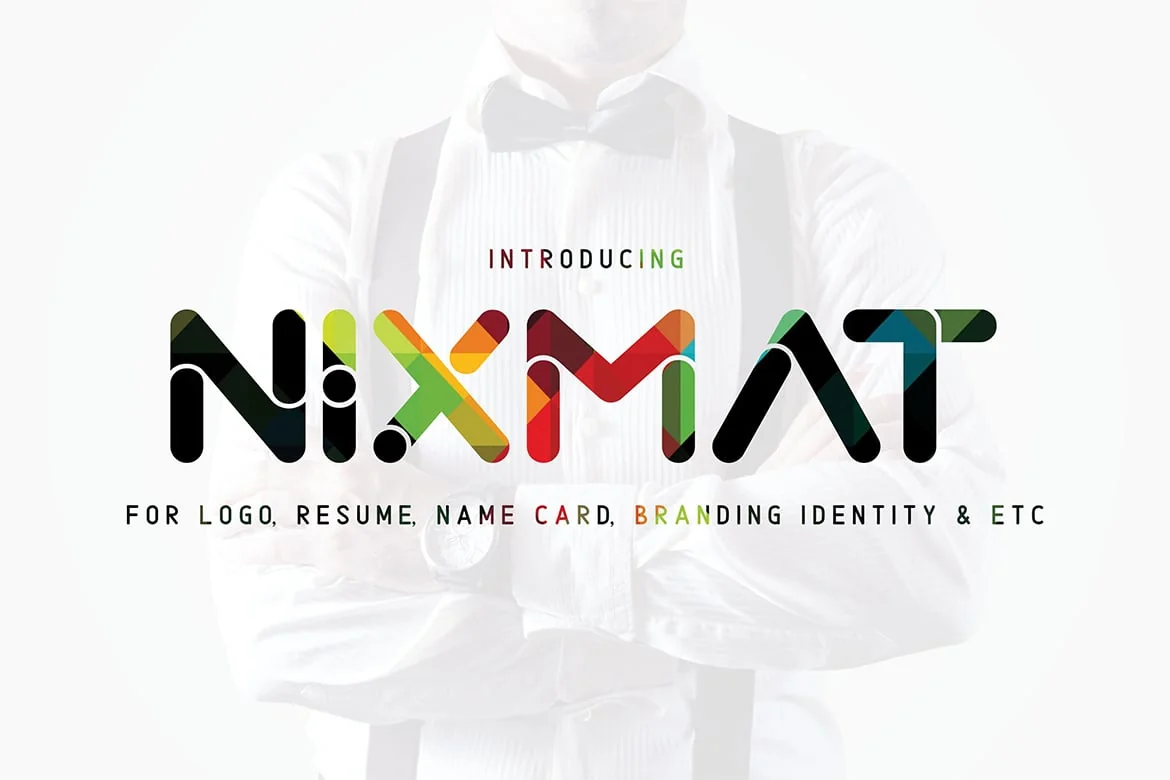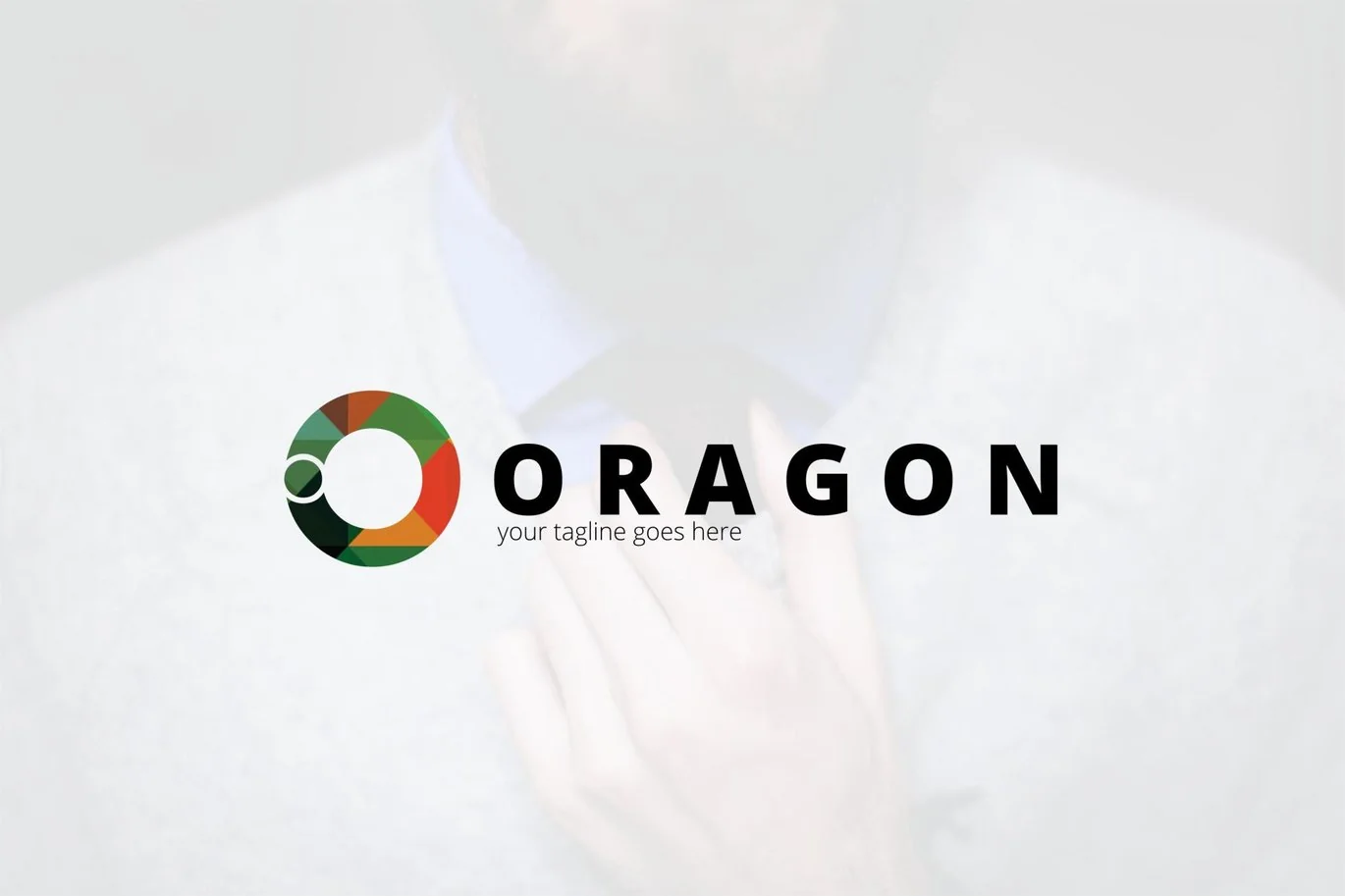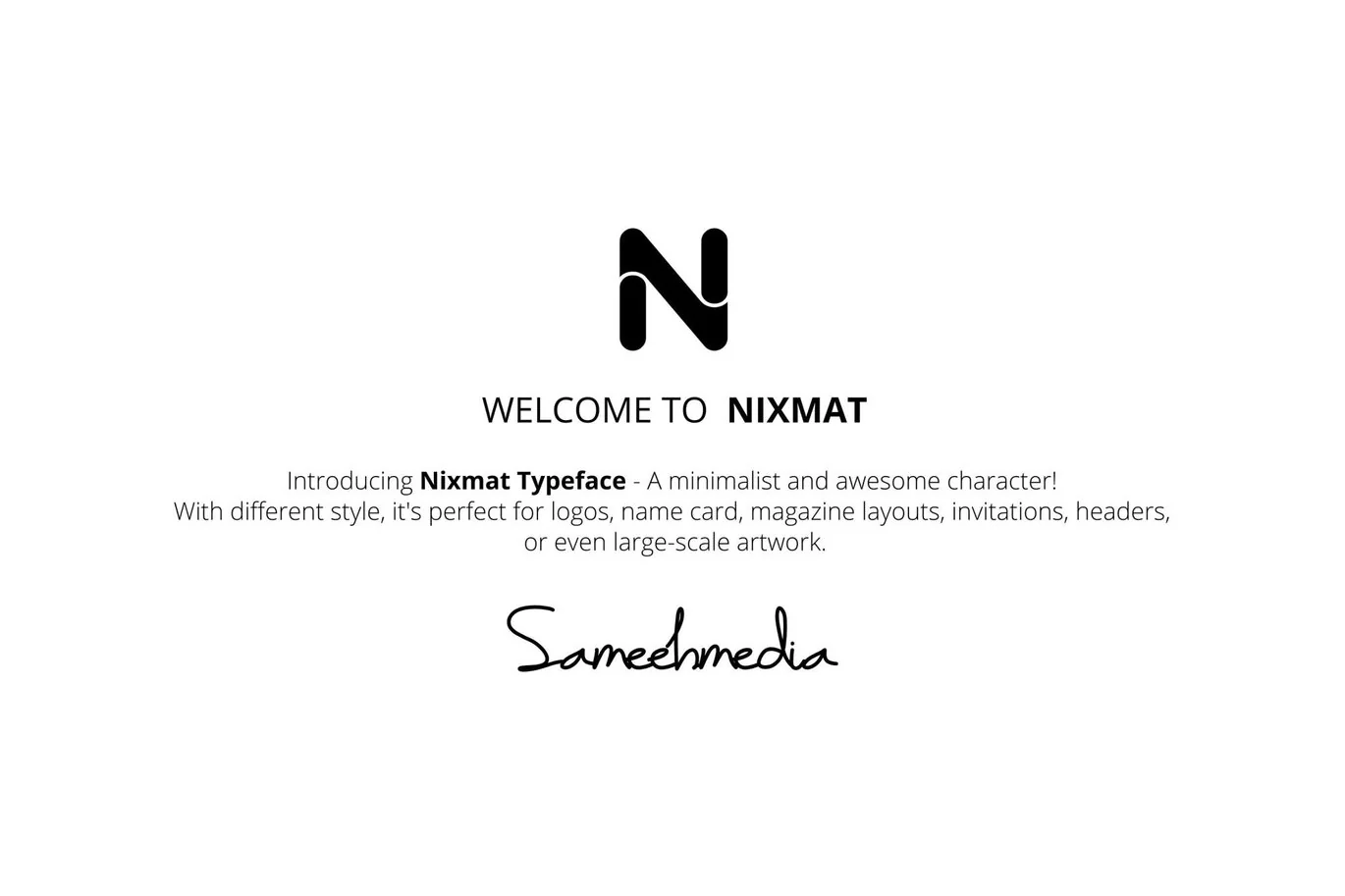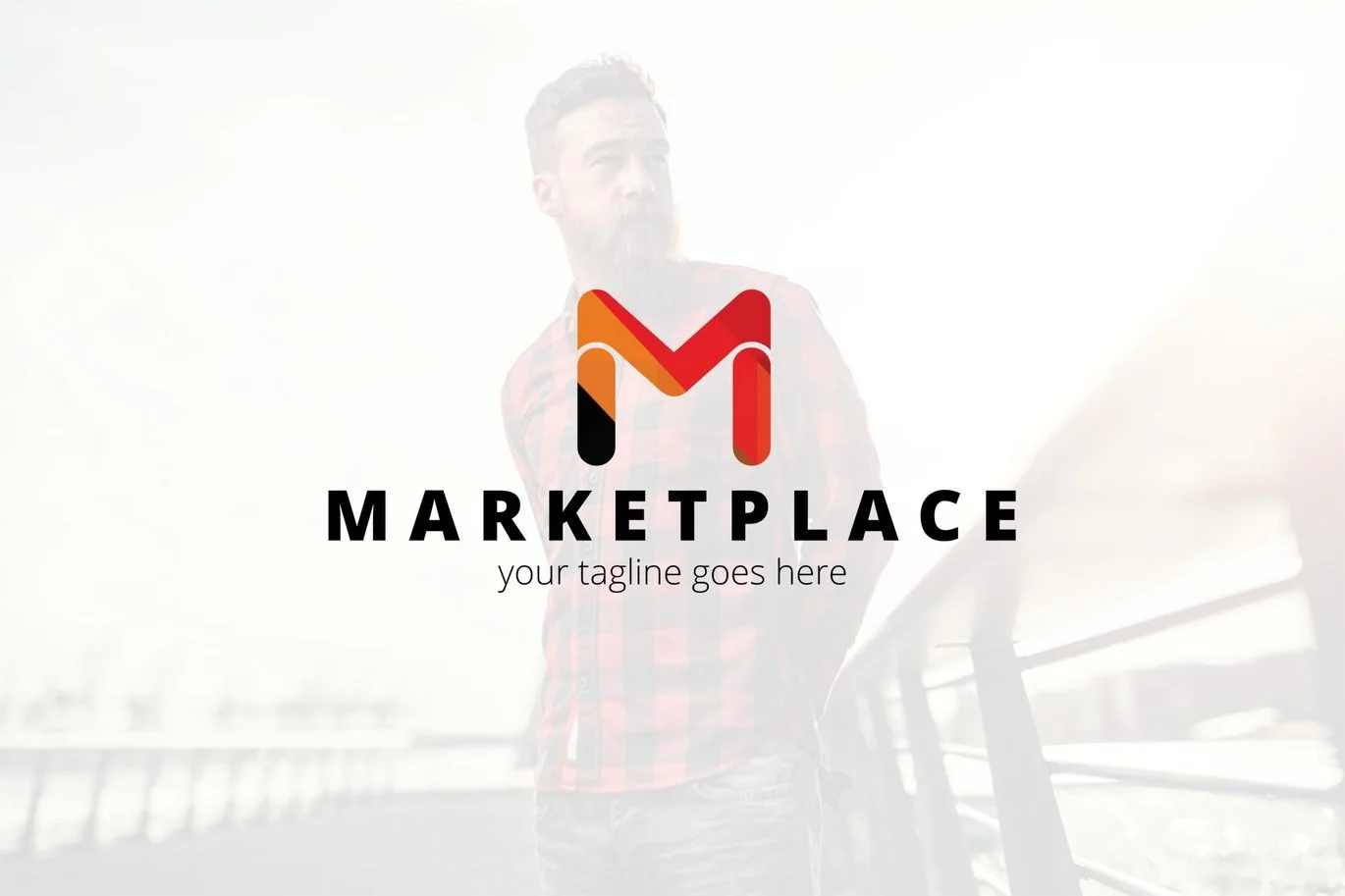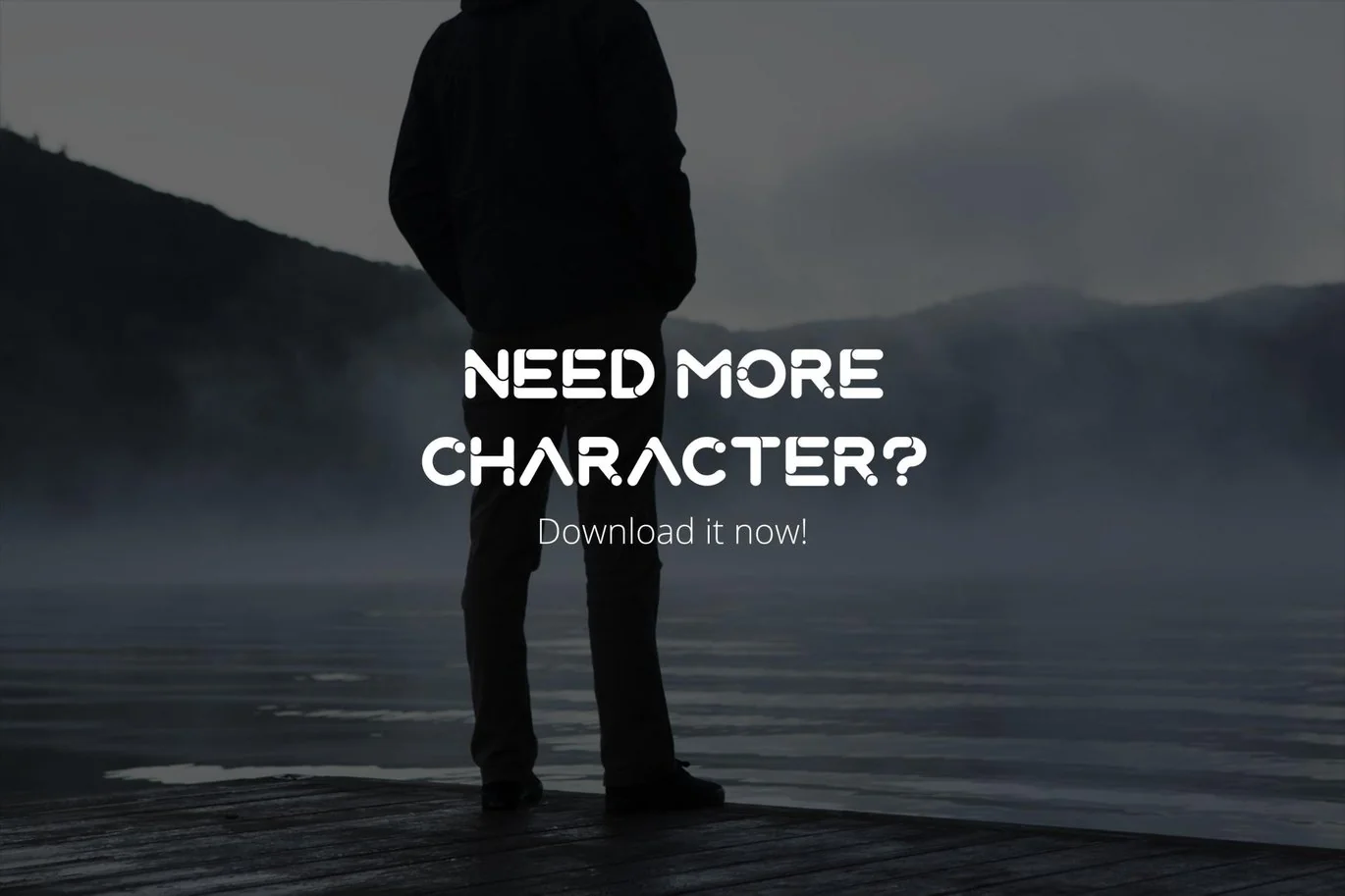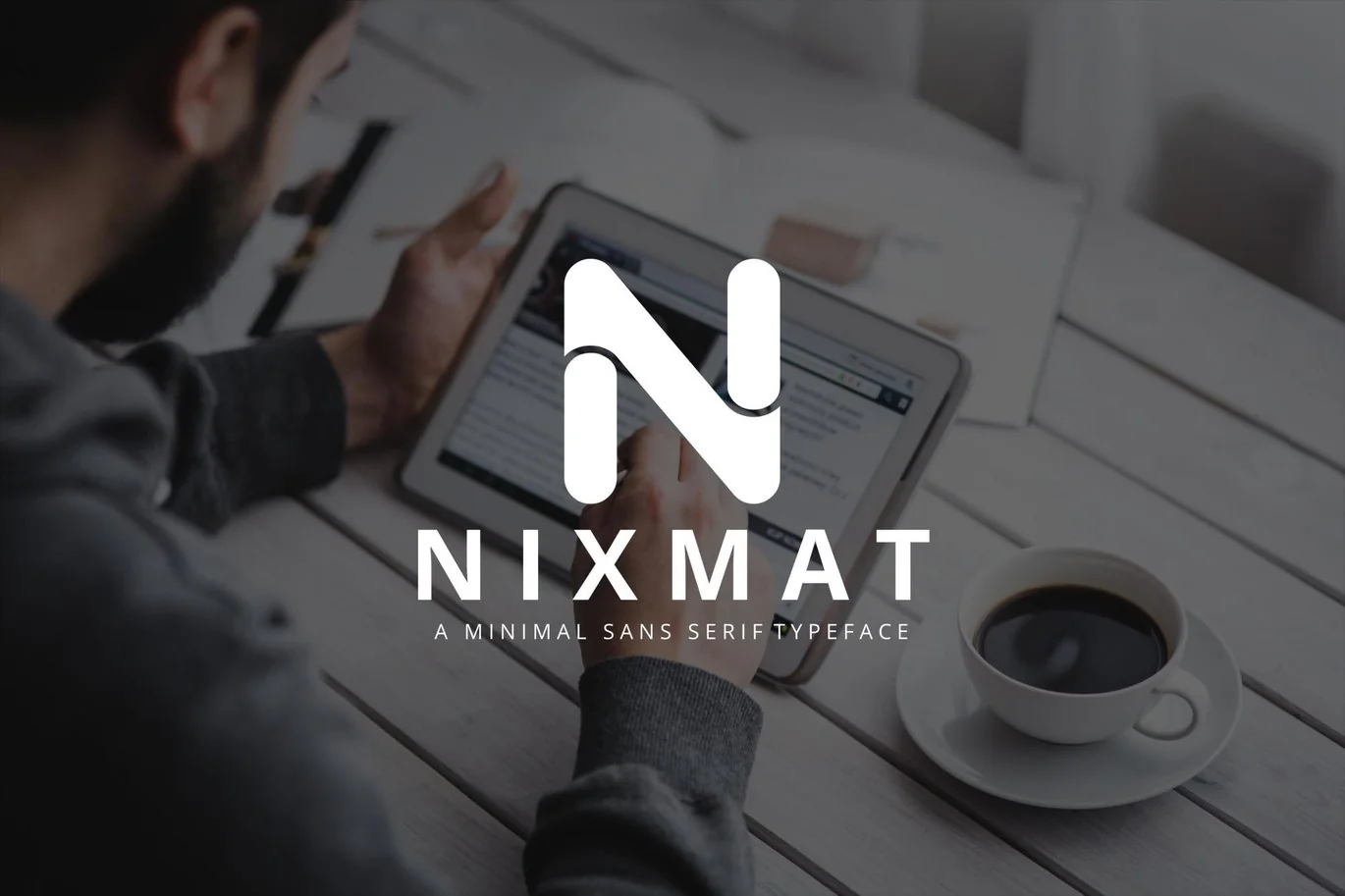
Nixmat | A Brand Identity Font
Introducing Nixmat Typeface – A minimalist and awesome character! With different style, it’s perfect for logos, name card, magazine layouts, invitations, headers, or even large-scale artwork.